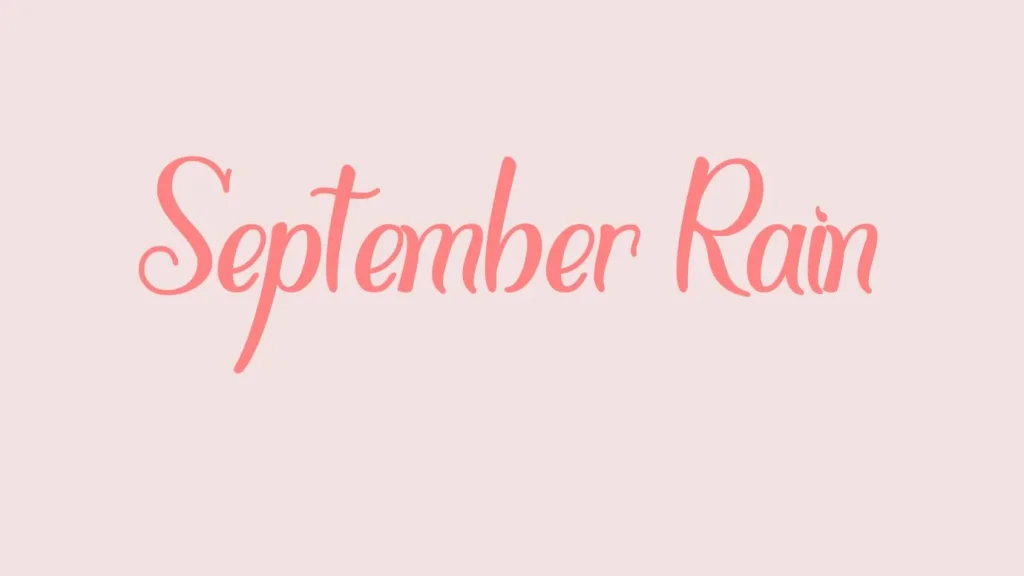
Utilizing this typeface will enhance the appearance of your designs. Use this typeface to create attractive headlines and titles.
September Rain Font contains a variety of traits and attributes that will look amazing in your creation. Consider other similar fonts if you are searching for a more readable typeface that looks good together.
StyleScript